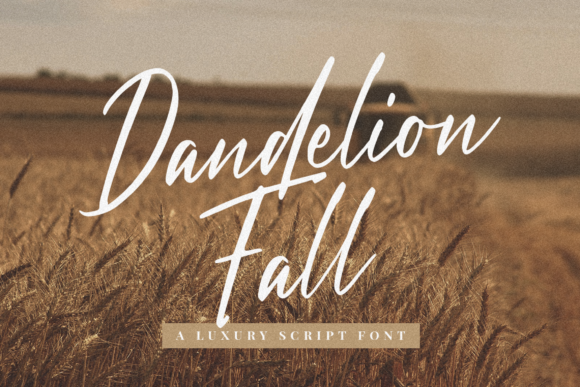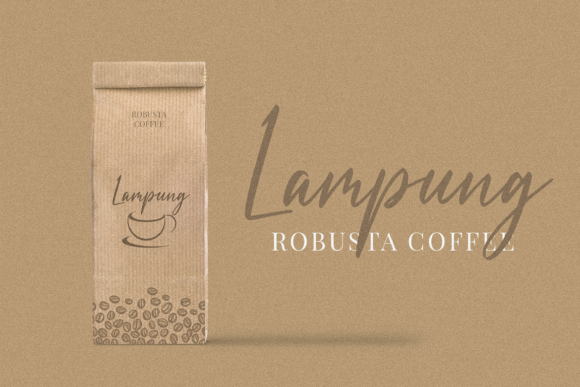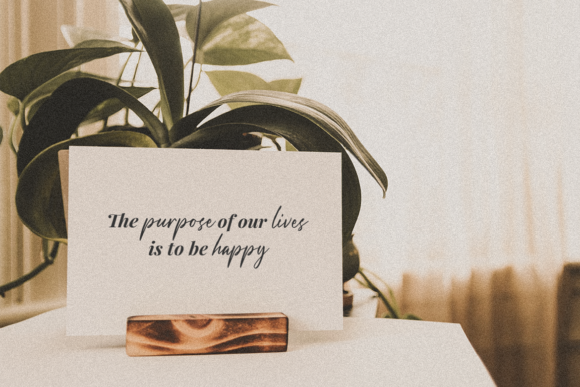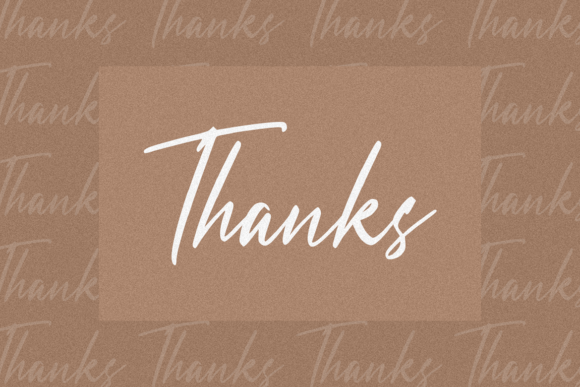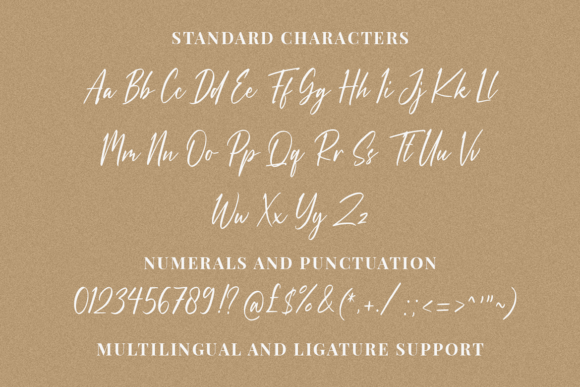
About Dandelion Fall Font
Dandelion Fall is an exquisite handwritten font, masterfully designed to become a true favorite. It maintains its classy calligraphic influences while feeling contemporary and fresh. Fall in love with it and bring your projects to the highest levels!